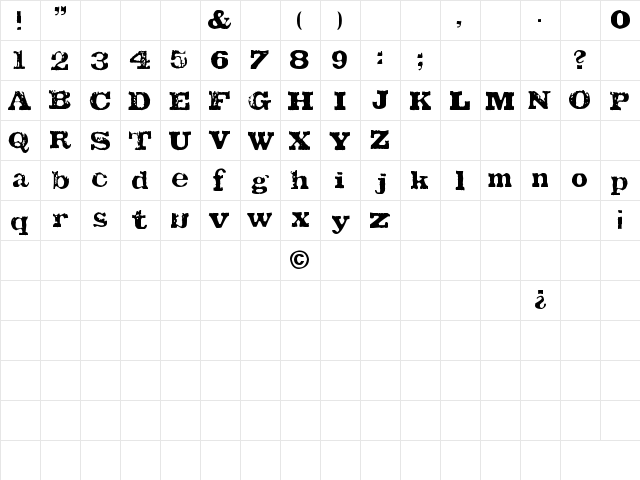
TATU Regular
Design Context for TATU Typeface
TATU is a composed and adaptable typeface that performs quietly and consistently across a wide range of design contexts.